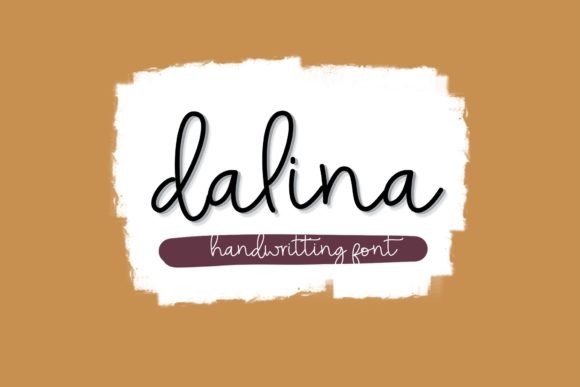
Introducing the Dalina Script Font, an exquisite creation that will transform your digital designs into elegant masterpieces. Step into a world of visual allure, where every letter dances with grace, and your creative vision takes center stage. Crafted with the utmost care by Carolina Mejia, this script font embodies a symphony of artistry and functionality.
Awaken your design senses as Dalina Script Font weaves its magic, infusing your projects with a touch of timeless sophistication. Its meticulously crafted strokes evoke a handwritten charm, adding an aura of authenticity and warmth to every word you compose. Delve into the depths of this font's versatility, discovering endless possibilities for expressing your unique style.
With Dalina Script Font as your creative ally, craft captivating headlines that command attention, design logos that radiate elegance, and create invitations that exude a sense of occasion. Unleash your imagination and let Dalina Script Font enhance your t-shirt designs with a touch of whimsy, or use it to craft greeting cards that carry heartfelt messages with an artistic flair.
Explore the realm of posters, labels, and book covers, where Dalina Script Font's presence elevates your designs to new heights. Transform brochures into works of art, capturing the reader's attention with every turn of the page. The possibilities are limitless, as Dalina Script Font adapts seamlessly to any project, adding a touch of brilliance that sets your work apart.
Embrace the beauty of Dalina Script Font, and embark on a creative journey where elegance and versatility intertwine. Let your imagination soar, knowing that this font will faithfully translate your vision into a visual masterpiece. Dalina Script Font is not just a font; it's an experience, an extension of your creativity, and a key to unlocking the full potential of your digital designs.